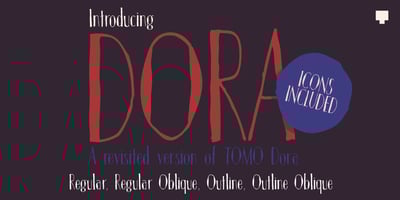
TOMO Dora Sans
TOMO Dora Sans font
TOMO Dora Sans Font Family was designed by TOMO Fonts and published by TOMO Fonts. TOMO Dora Sans contains 5 styles and family package options. TOMO Dora is a new face designed by TOMO FONTS. Dora is a condensed style-driven sans serif typeface made by hand, adding unique and a sweet touch. A family of 4 styles + awesome icons! Enjoy!